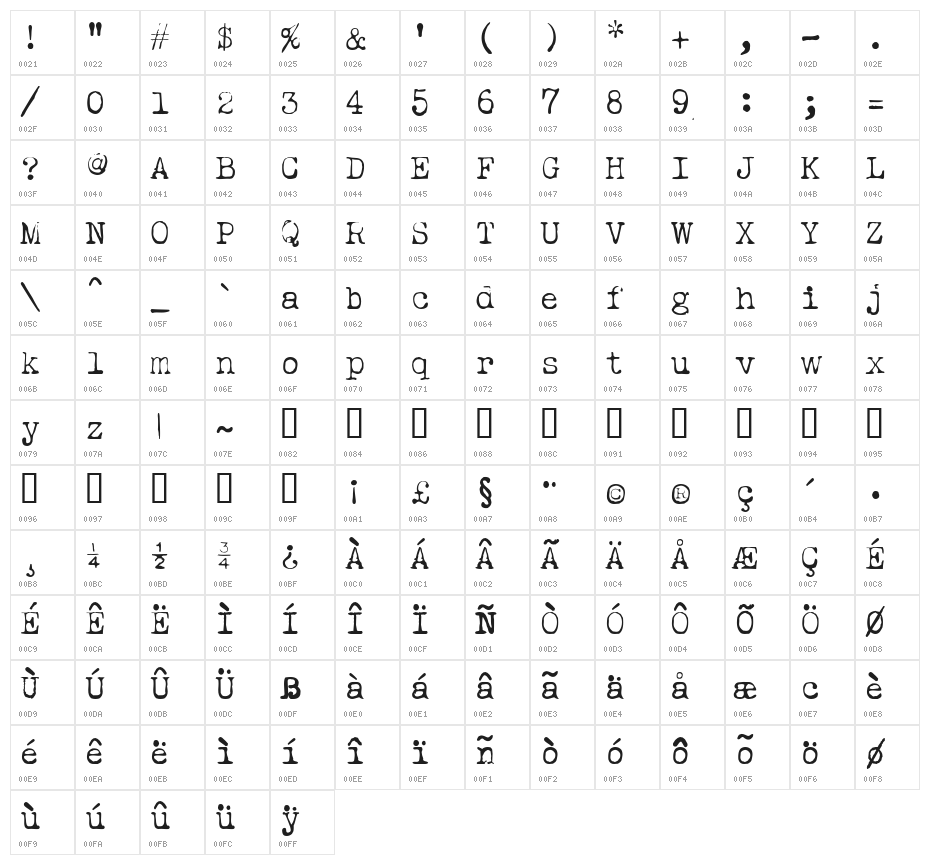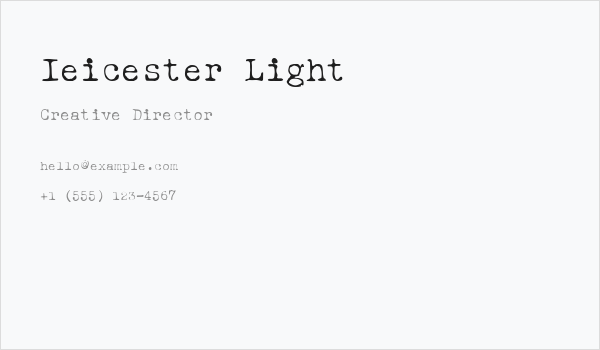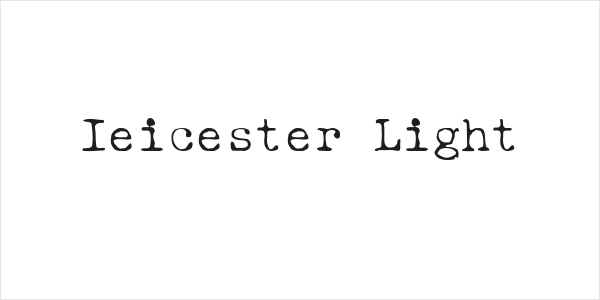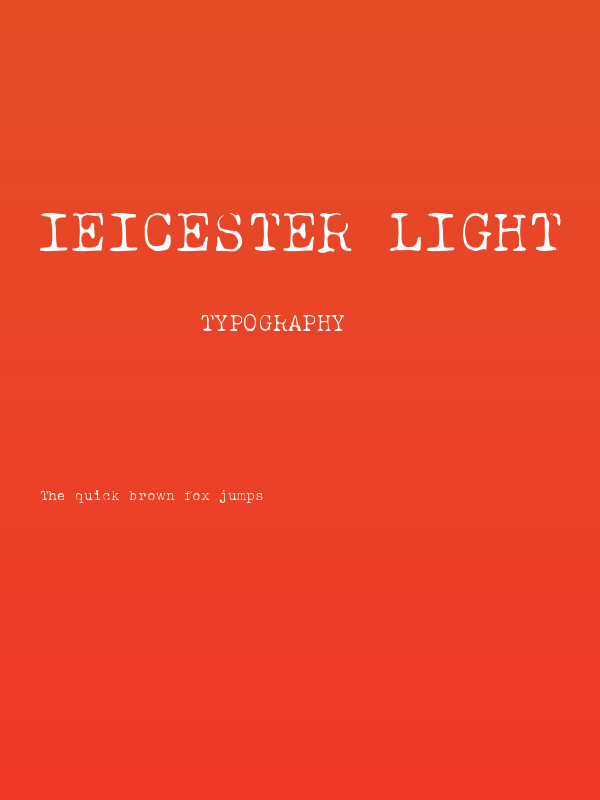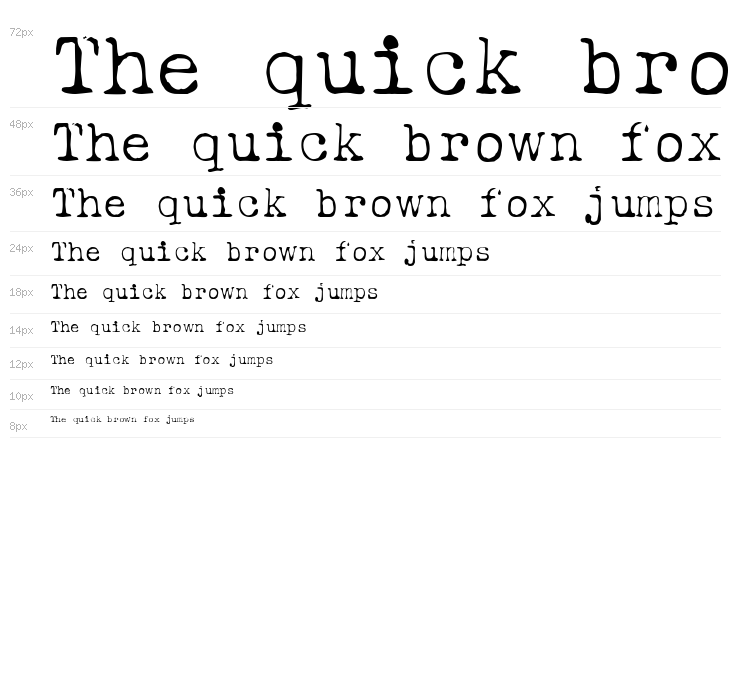
Ieicester Light Font
Ieicester Light Description
This font features a distinctive, vintage typewriter style with irregularities that give it a worn, textured appearance. The characters have a slightly distressed look, with varying stroke widths and subtle imperfections that add to its charm. The uppercase letters are bold and commanding, while the lowercase letters maintain a consistent style, offering a cohesive yet unique aesthetic. Numbers and punctuation follow the same design principles, providing a complete and versatile character set. This font is ideal for projects that require a touch of nostalgia or a handcrafted feel.
| Proposed Projects | Ideal for vintage-themed designs, posters, book covers, and branding that requires a nostalgic touch. |